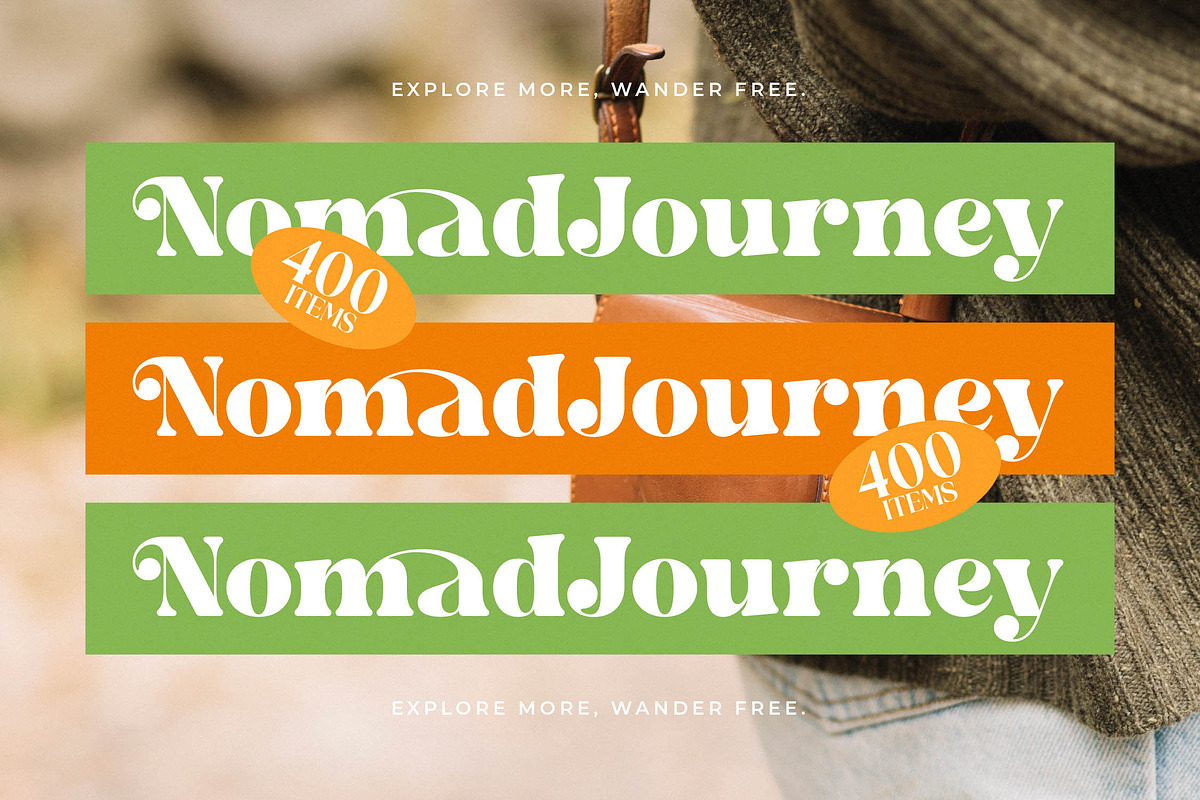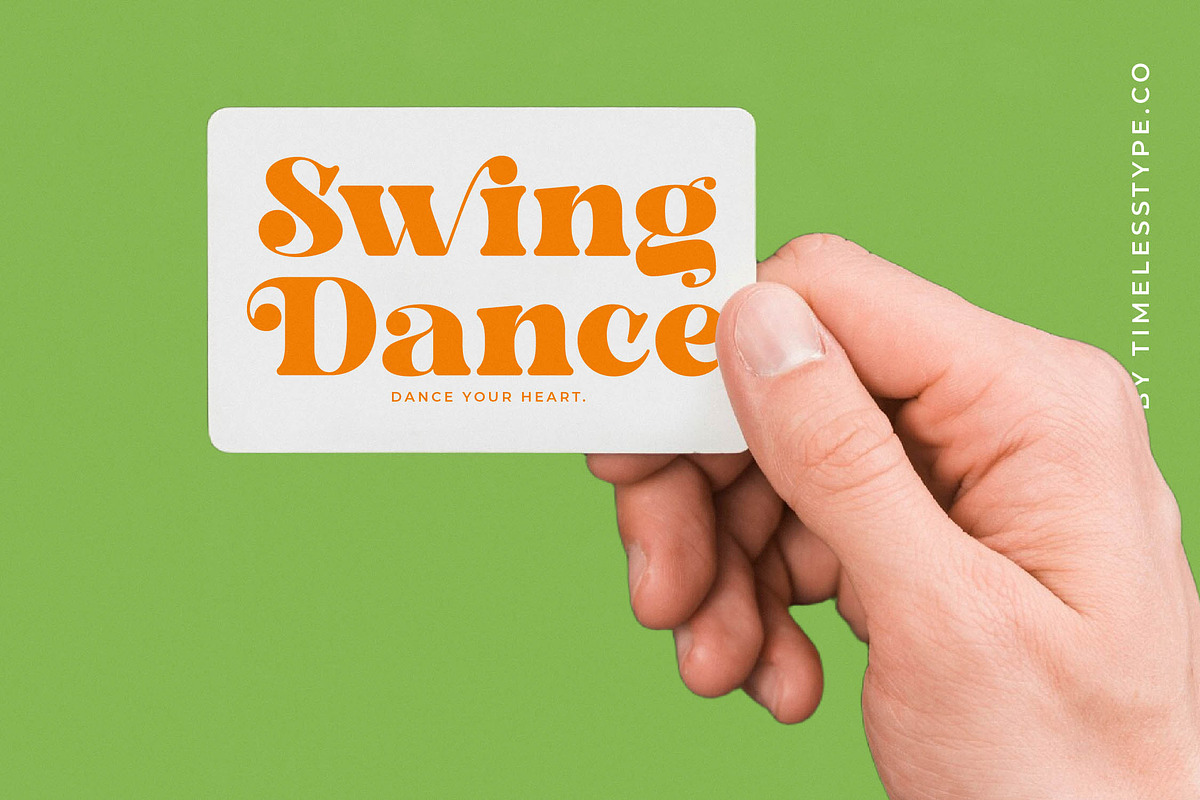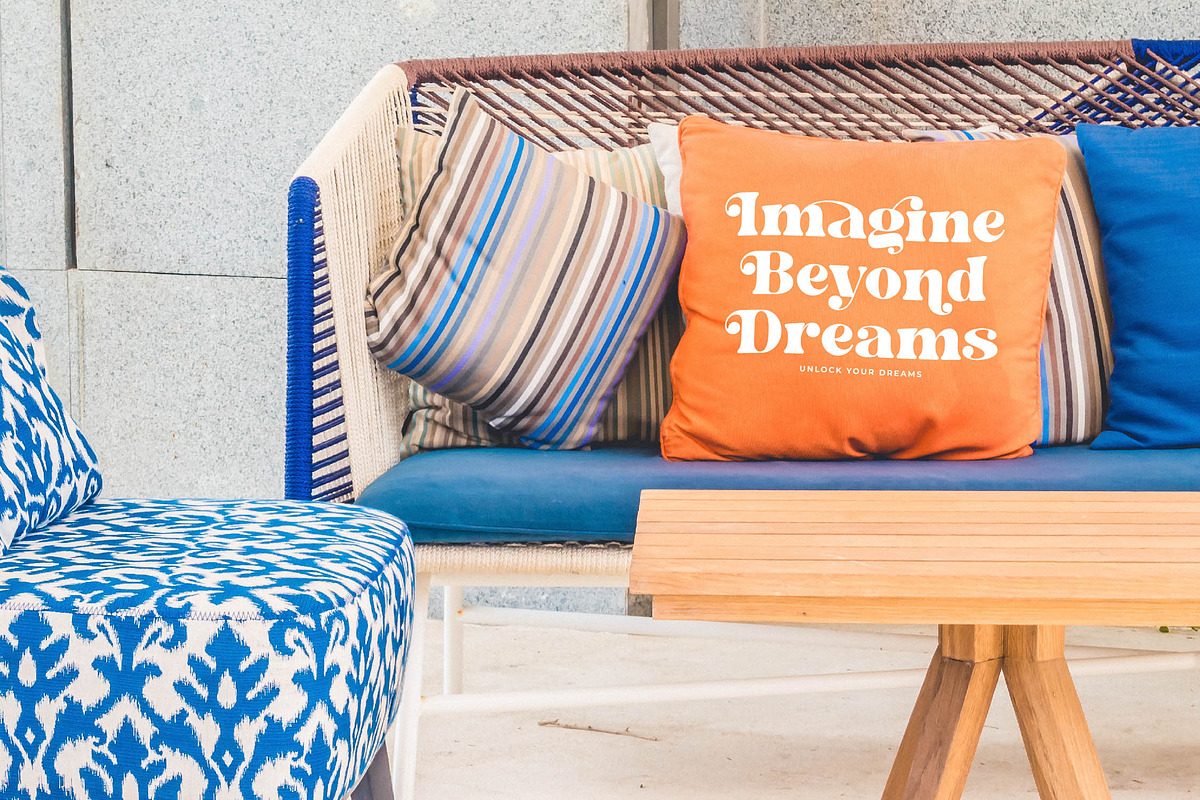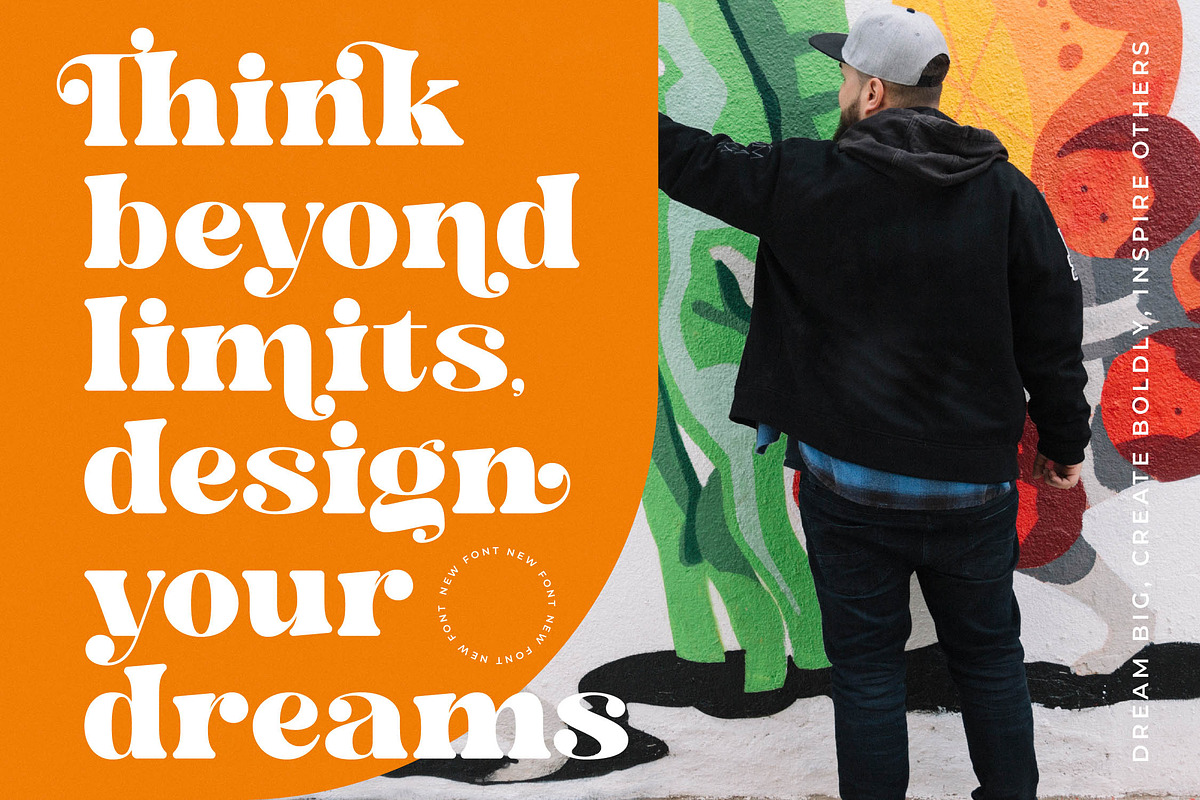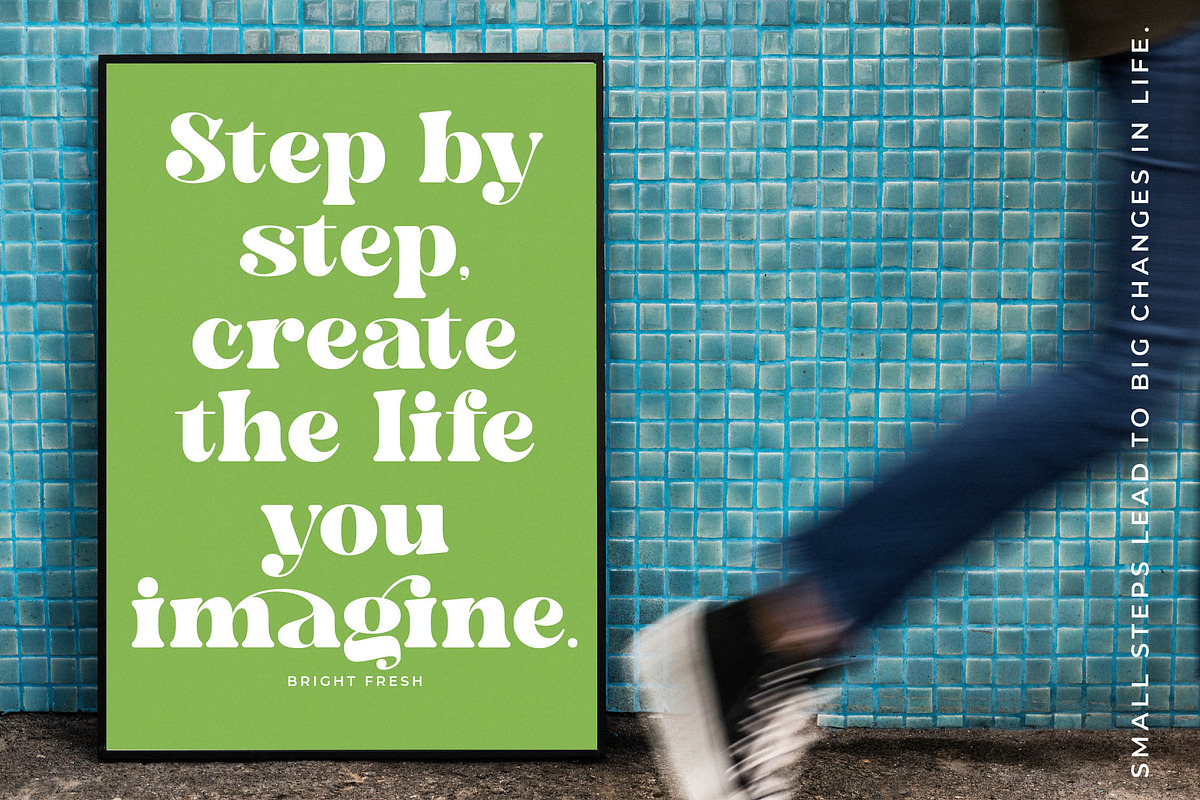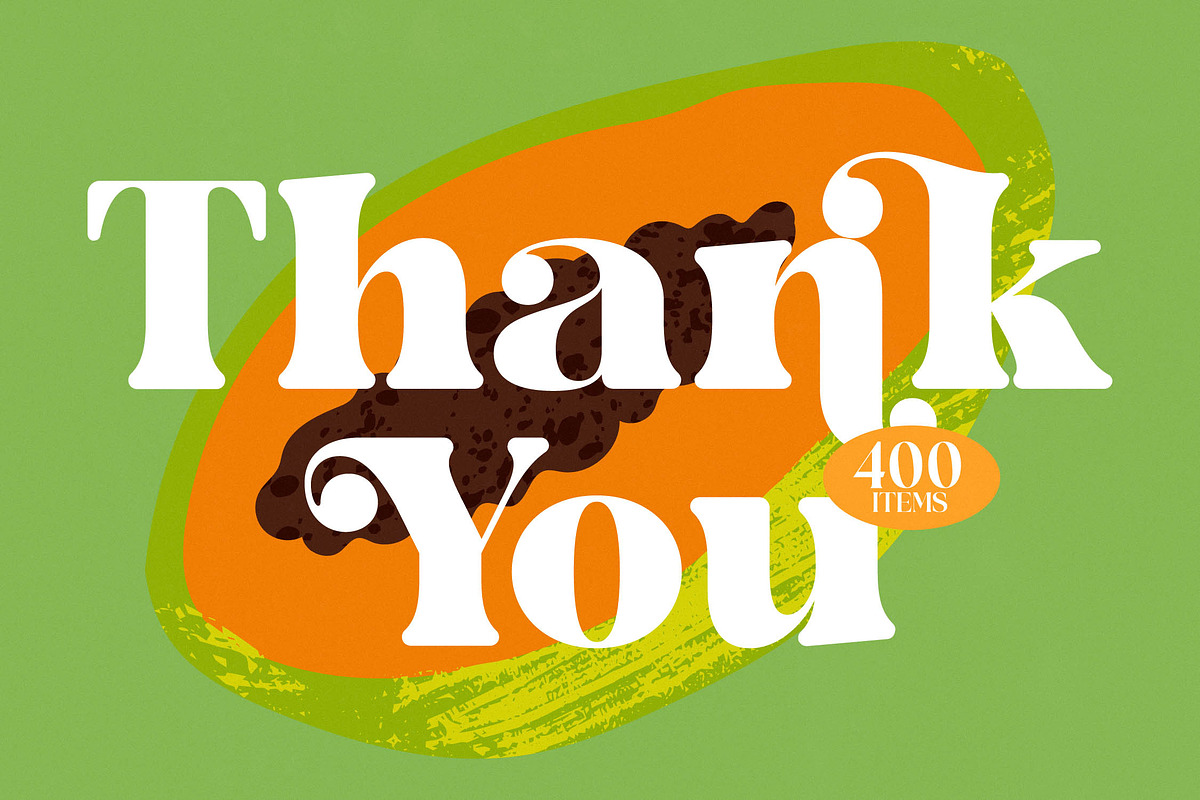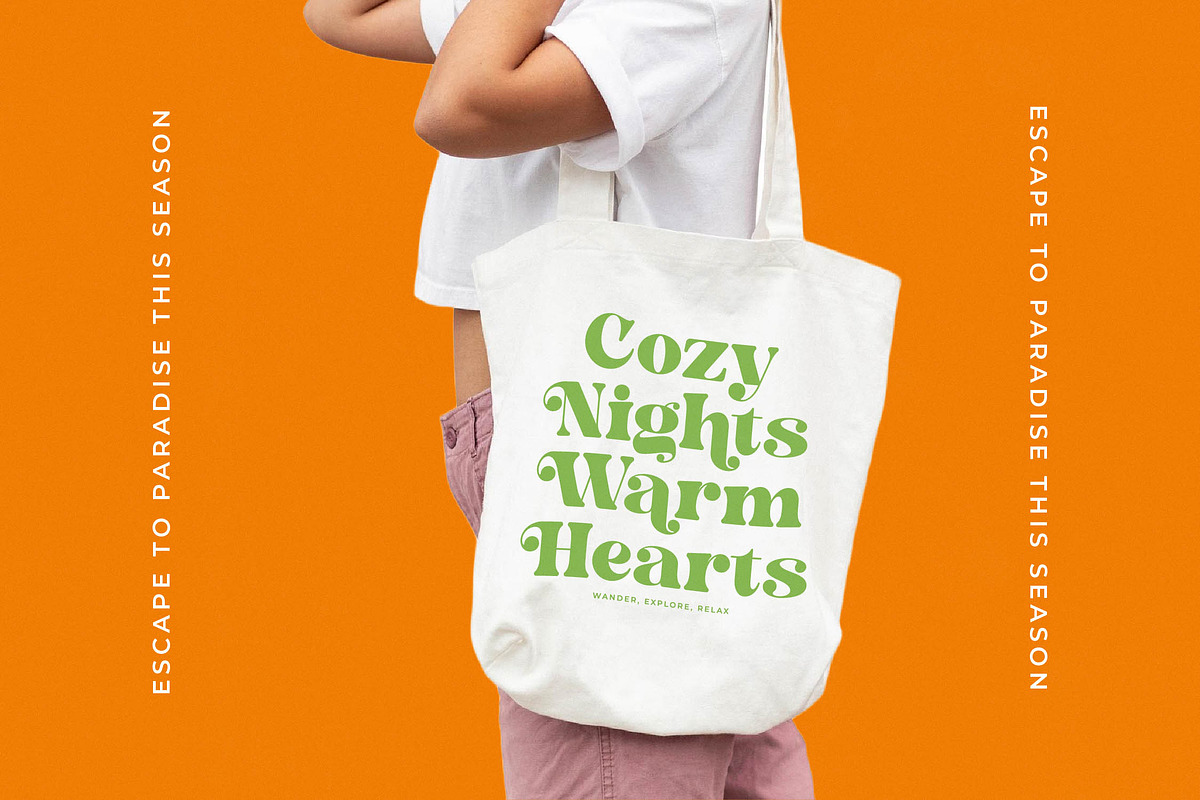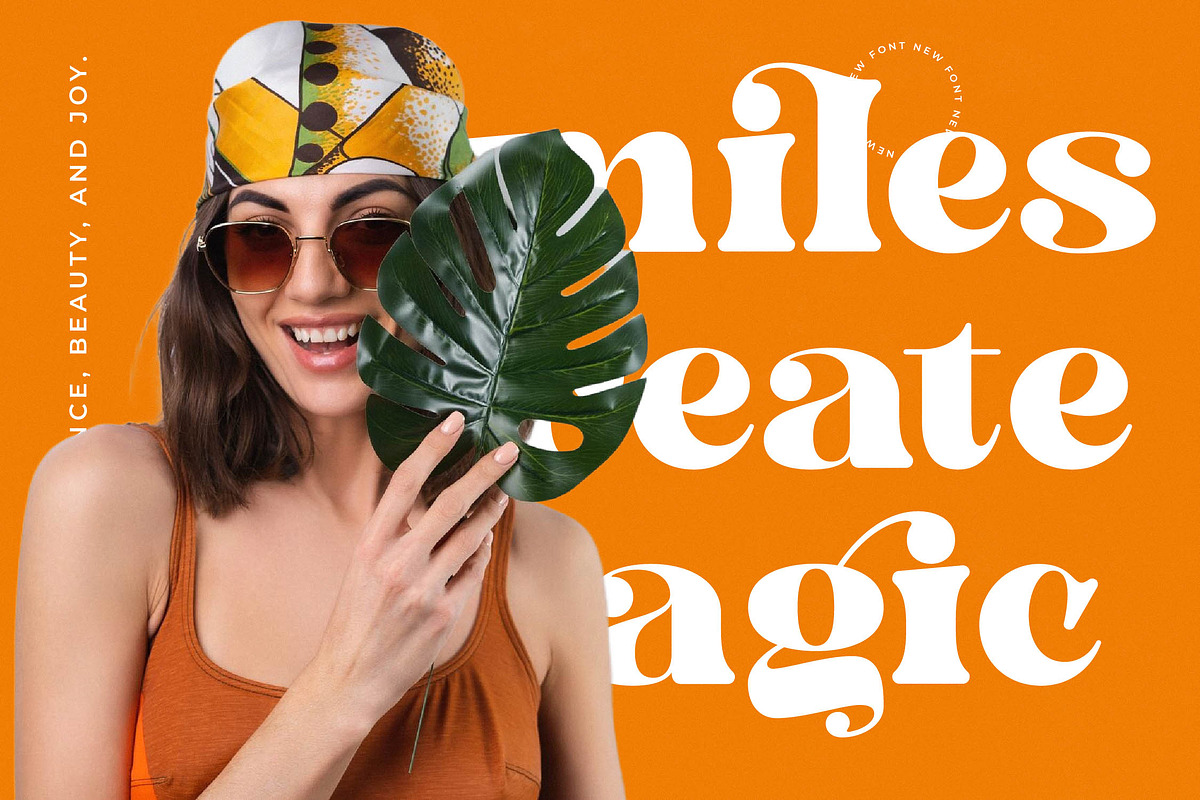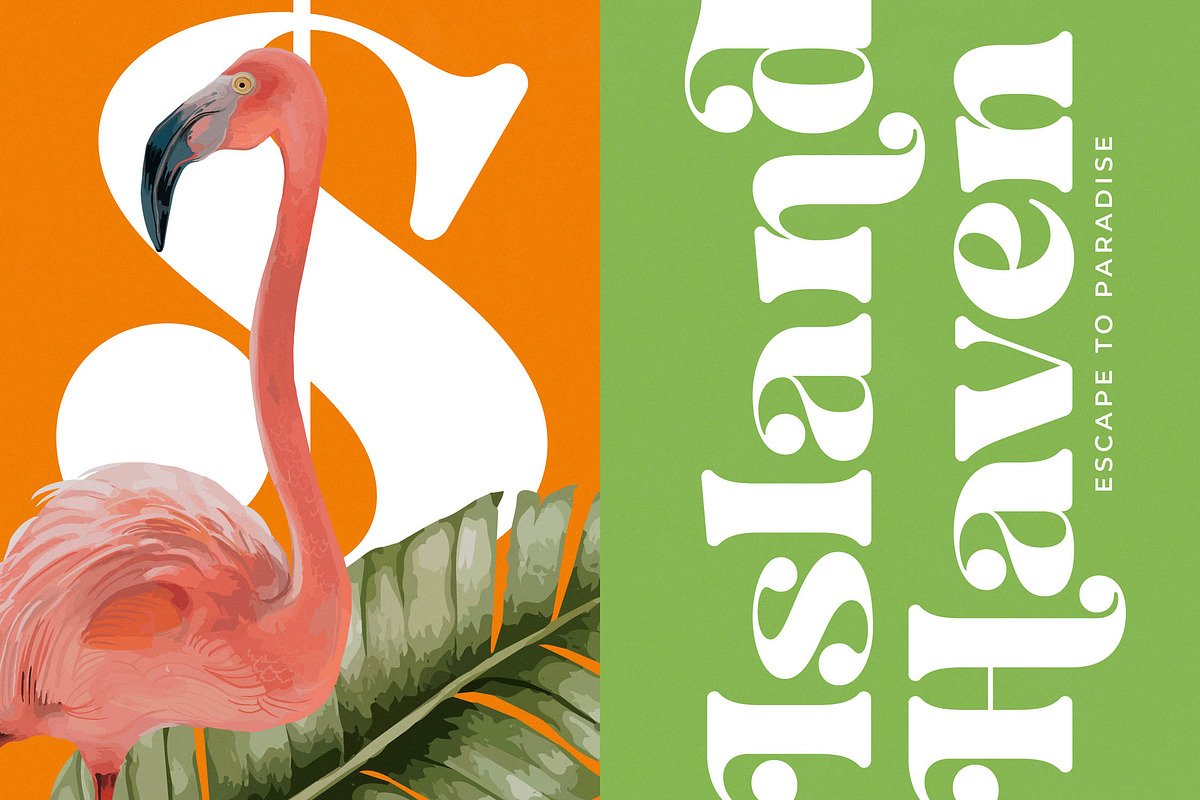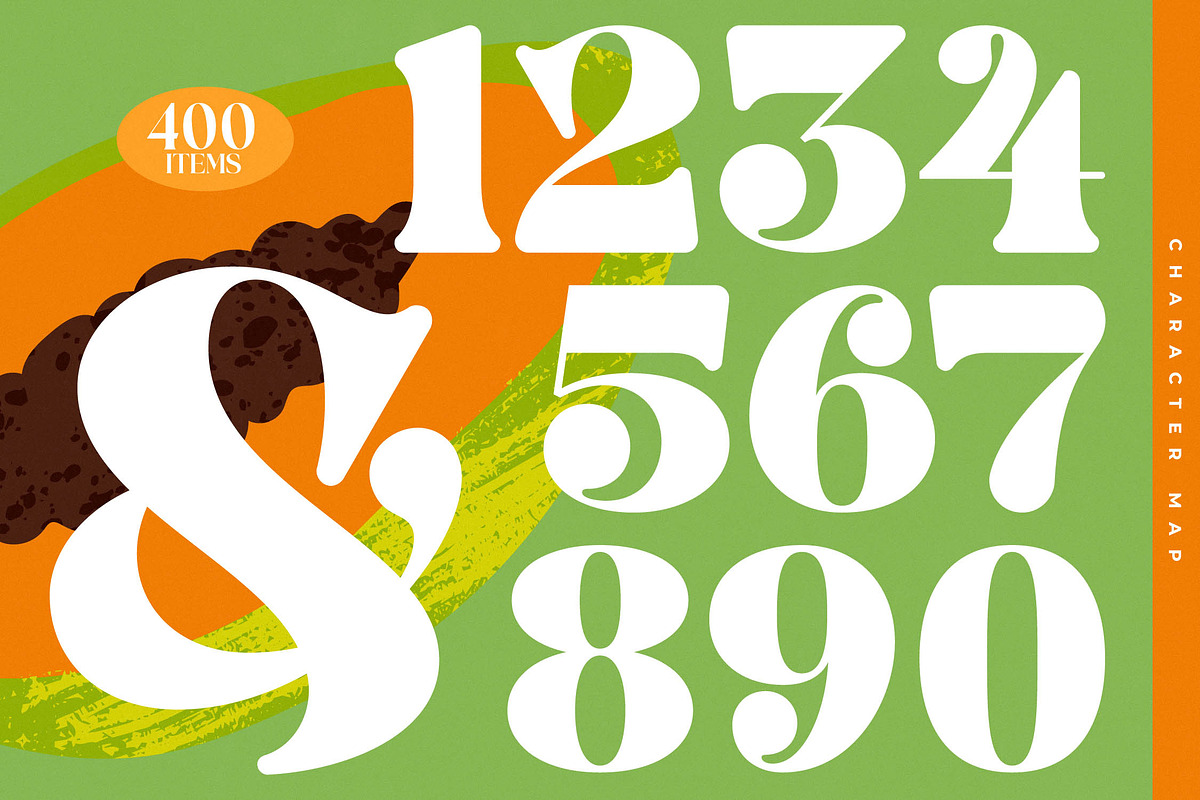
Bright Fresh Bold Retro Serif
Experience the vibrant energy of Bright Fresh, a typeface designed to infuse your creative projects with a burst of sunshine and sophisticated charm. This font is more than just a set of characters; it is a bold statement piece for designers who crave high-impact expression and timeless elegance.
Inspired by the lush, organic curves of tropical flora and the playful aesthetics of vintage fruit labels, Bright Fresh captures a sense of natural rhythm and warmth. It perfectly balances substantial weight with delicate, flowing details, evoking a sun-drenched atmosphere where every letterform tells a story of vitality and growth.
This modern serif display is engineered for maximum branding impact, offering a level of luxury typography that commands attention across all platforms. As a high-contrast serif, it delivers a striking visual hierarchy that makes it an essential editorial font for designers looking to blend contemporary flair with classic structure.
Tapping into the current modern serif trend, this typeface addresses the growing demand for character-driven typography in a crowded digital landscape. It stands out among editorial display fonts by providing a unique voice that feels both nostalgic and forward-thinking, perfect for brands that want to feel established yet completely new.
Versatile enough for a wide range of applications, Bright Fresh excels in high-end logo design and comprehensive branding systems. From luxury fashion lookbooks and sophisticated editorial layouts to premium packaging and elegant wedding stationery, its bold presence elevates every creative touchpoint.
Packed with professional features, the typeface includes a wide array of ligatures and alternates that allow for endless customization and unique word shapes. With comprehensive multilingual support, international characters, and decorative swashes, it provides the technical versatility needed for high-level global design projects.
- Ligature 19 Alternate 51